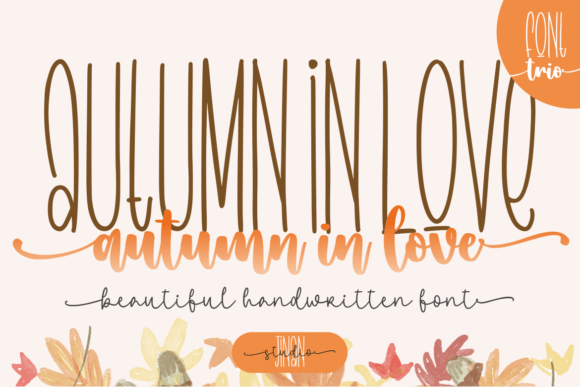
Autumn in Love Trio Font: Adding a Romantic Touch to Your Creations
As the seasons change and autumn arrives, it’s the perfect time to infuse your designs with a warm, romantic feel. Introducing the Autumn in Love Trio Font, a stylish and delicate trio of fonts that will add a touch of elegance to your creations. This versatile font combination is suitable for a wide range of applications, from greeting cards to headlines, and is sure to make your designs stand out.
What is Autumn in Love Trio Font?
Autumn in Love Trio Font is a unique and charming font combination that consists of three distinct fonts: script, monoline, and sans serif. Each font has its own unique characteristics, but they all share a common thread – a delicate and stylish aesthetic that exudes romance and sophistication. Whether you’re creating a wedding invitation, a greeting card, or a social media post, this font trio is sure to add a touch of whimsy and charm.
Key Features of Autumn in Love Trio Font
- PUA Encoded: Autumn in Love Trio Font is PUA (Private Use Area) encoded, which means you can access all of the glyphs and swashes with ease. This makes it simple to create beautiful, intricate designs that showcase your creativity.
- Three Unique Fonts: The font trio consists of three distinct fonts: script, monoline, and sans serif. Each font can be used separately or in combination to create a unique and visually appealing design.
- Romantic and Delicate: The Autumn in Love Trio Font is designed to add a romantic touch to your creations. The delicate and stylish aesthetic makes it perfect for designs that require a touch of elegance and sophistication.
- Versatile: This font trio is suitable for a wide range of applications, from greeting cards to headlines, and can be used for both personal and commercial projects.
Uses for Autumn in Love Trio Font
The Autumn in Love Trio Font is a versatile font combination that can be used for a wide range of applications. Here are some ideas to get you started:
- Greeting Cards: Create beautiful and romantic greeting cards for special occasions like weddings, anniversaries, and Valentine’s Day.
- Wedding Invitations: Add a touch of elegance and sophistication to your wedding invitations with the Autumn in Love Trio Font.
- Headlines: Use the font trio to create eye-catching headlines for your blog posts, articles, or social media posts.
- Social Media Graphics: Create stunning social media graphics with the Autumn in Love Trio Font, perfect for Instagram, Facebook, and Twitter.
- Branding: Use the font trio to create a unique and recognizable brand identity for your business or product.
Tips for Using Autumn in Love Trio Font
Here are some tips to help you get the most out of the Autumn in Love Trio Font:
- Experiment with Different Font Combinations: Try pairing the script font with the monoline font or the sans serif font to create a unique and visually appealing design.
- Use Swashes and Glyphs: Take advantage of the PUA encoding and use the swashes and glyphs to add a touch of elegance and sophistication to your designs.
- Adjust Font Sizes: Experiment with different font sizes to create visual hierarchy and add emphasis to your designs.
- Pair with Images: Pair the Autumn in Love Trio Font with beautiful images or illustrations to create stunning designs that tell a story.